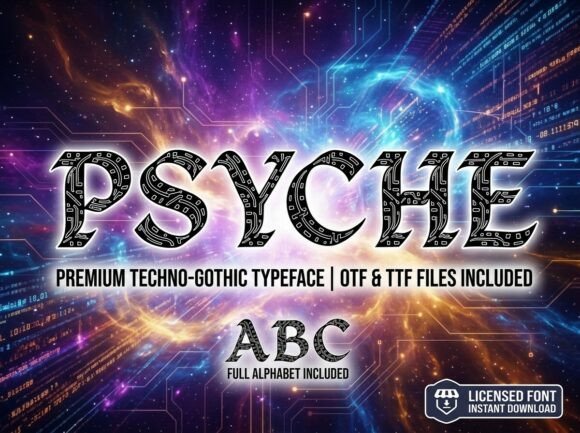
Psyche: A Display Font That Demands Attention—Wisely
First Glance: Sharp, Sculpted, Slightly Mysterious
Psyche lands like a well-placed accent light—not loud, but impossible to ignore. It’s not playful or nostalgic; it’s quietly confident, with high-contrast letterforms, tapered terminals, and subtle optical refinements that suggest intention, not algorithm. The uppercase feels architectural—clean lines, restrained curves, a touch of Art Deco discipline. Lowercase is more nuanced: the a, g, and y carry quiet personality without tipping into whimsy. This isn’t a font that shouts “look at me.” It says, “I belong here—and I mean something.”
Where Psyche Earns Its Place in Real Projects
As a display font, Psyche thrives where impact matters more than volume. In logo design, it works best for brands with clarity, restraint, and a hint of sophistication—think premium skincare, boutique publishing, independent jewelry labels, or modern architecture studios. Its rhythm holds up beautifully on product labels and packaging design, especially when printed on textured paper or matte finishes. The contrast reads cleanly at 36–72pt, and the letter spacing feels intentional—not tight, not loose, just *settled*.
For editorial design and blog graphics, Psyche shines as a headline typeface above body text set in a neutral serif or sans serif font. It anchors a layout without competing. In social media graphics, it performs strongly in square or vertical formats—especially over muted gradients or soft-focus photography—where its structure cuts through visual noise. On merchandise (think tote bags, enamel pins, or ceramic mugs), Psyche translates well to screen printing and laser engraving, provided you avoid fine inner counters at very small sizes.
It’s also a reliable choice for digital products: website headers, Canva templates, Cricut project titles, and printable design assets like wedding invitations or workshop handouts. Because its weight distribution is even and its proportions balanced, it scales predictably across devices—no awkward clipping or collapsed counters on mobile previews.
Use It Like a Tool—Not a Trend
Psyche isn’t built for paragraphs. Don’t try to set a product description or blog intro in it. Its strength lies in brevity: brand marks, short slogans (“Clarity. Craft. Care.”), pull quotes, chapter titles, or decorative accents like dividers or monogrammed corners. Reserve it for moments where tone and presence matter more than exposition.
In packaging design, pair Psyche with a warm, organic serif for ingredient lists—or a crisp, low-contrast sans serif for certifications and legal text. That contrast reinforces hierarchy and builds trust: Psyche signals quality and intention; the supporting type signals transparency and reliability.
What Psyche Does to Your Brand Identity—Beyond Aesthetics
Using Psyche shapes perception before a single word is read. It telegraphs precision, care, and modern typography sensibility—without feeling cold or corporate. That’s rare. Many display fonts lean hard into either luxury cliché or indie quirk. Psyche avoids both. It supports brand consistency because it doesn’t distract from color, image, or layout—it elevates them.
Audience trust rises when type feels deliberate. Psyche’s spacing, kerning, and weight balance say, “This was chosen, not grabbed.” Recognition improves because its letterforms are distinct but legible—not so abstract that they blur together in memory. And engagement? It slows the scroll. Not by being flashy, but by inviting pause—like a well-composed photograph or a precisely folded brochure.
Designer Notes You’ll Actually Use
- Test it in black and white first. Psyche’s contrast relies on value—not color—so if it reads poorly without ink density variation, it won’t hold up on newsprint or budget packaging.
- Check readability at 24pt and below. Some glyphs (like the lowercase e or s) tighten visually at smaller sizes. If your project includes subheads or captions under 30pt, test those live—not just in mockup previews.
- Try it on real mockups—not just screens. Print a few label variations on actual stock. View Psyche on a matte vs. glossy finish. See how light catches its terminals. Type lives in context, not in isolation.
- Compare uppercase and lowercase side-by-side. Psyche’s caps have stronger presence. If your logo uses all-caps, great. But if your brand voice leans conversational, test mixed case in headlines—some combinations feel stiffer than others.
- Review spacing carefully. Its default tracking works well at headline sizes, but tightening it 10–20 units can add cohesion in tight layouts (like Instagram story text). Avoid over-kerning—it’s already tuned.
- Pair it deliberately. Try Psyche beside a sturdy serif (e.g., Tiempos Text), a friendly sans (e.g., Inter), a delicate script font (for contrast, not harmony), and a grounded handwritten font (to humanize it). Also test it against another display font—you’ll quickly see where Psyche stands out (clarity) and where it recedes (playfulness).
If your next project needs quiet authority, refined energy, or a distinctive yet professional voice—Psyche isn’t just an option. It’s a considered choice. And in real-world design, that’s worth more than any headline-grabbing flourish.